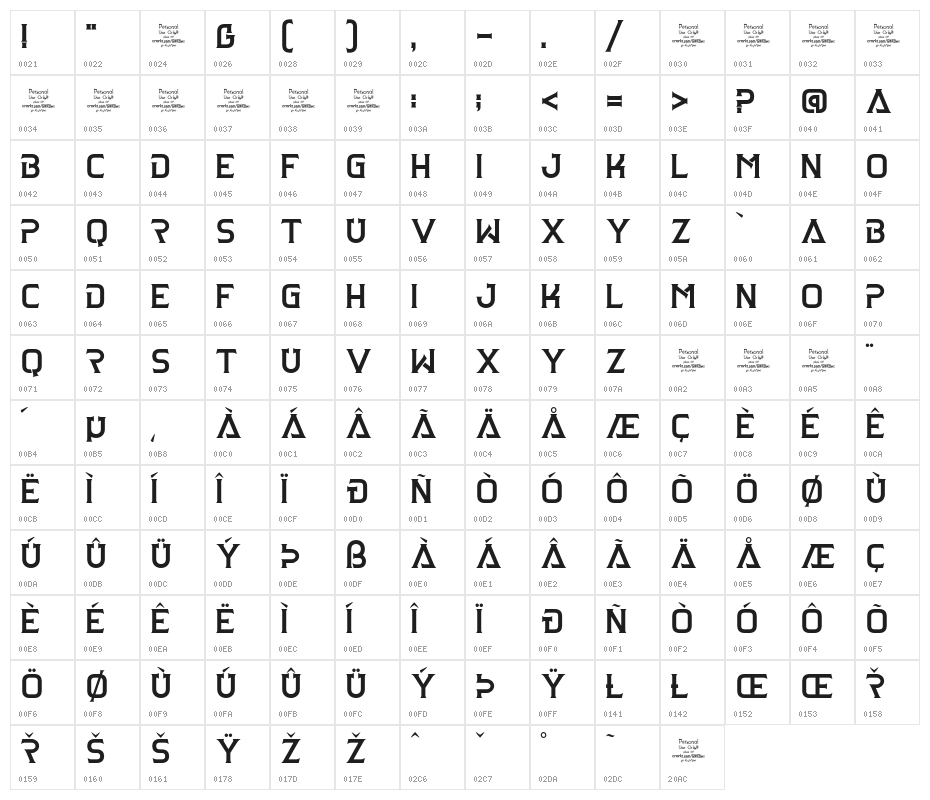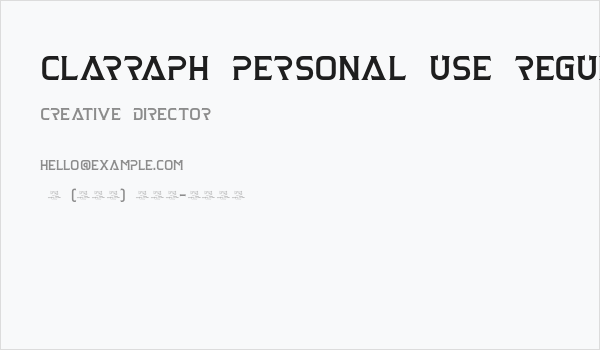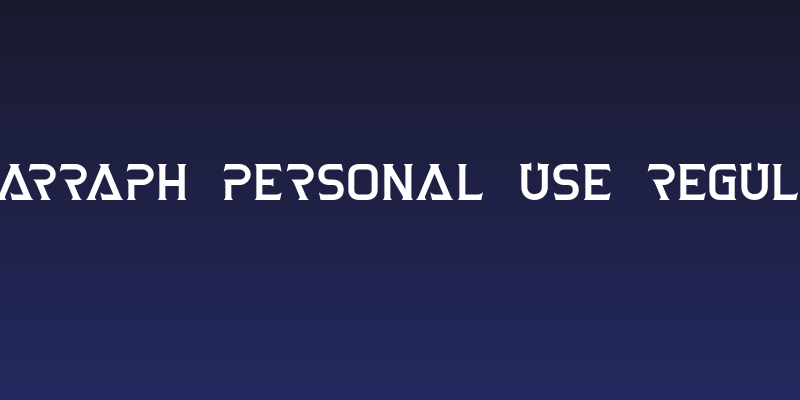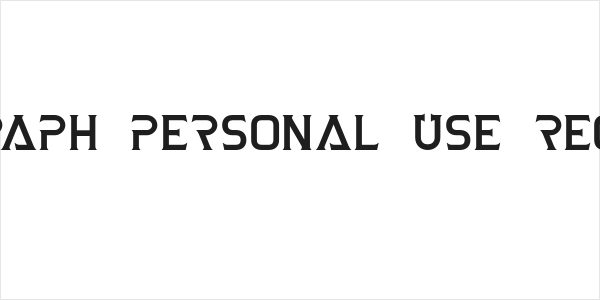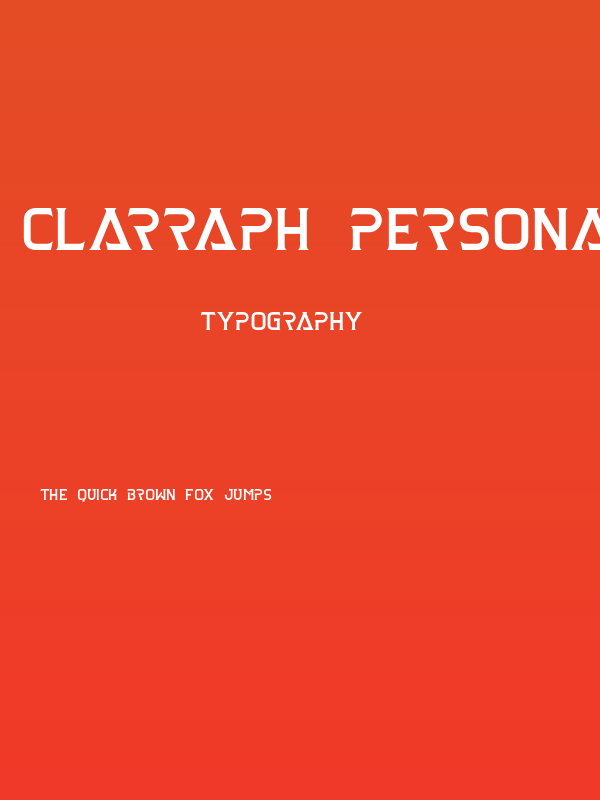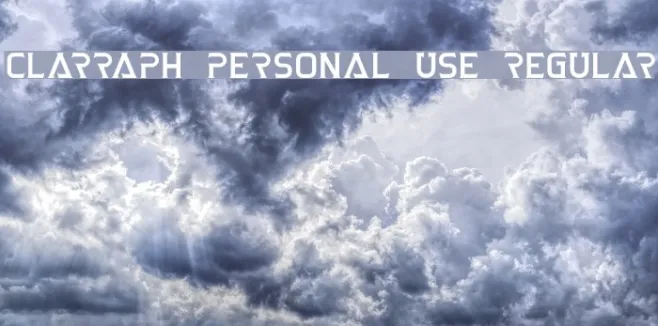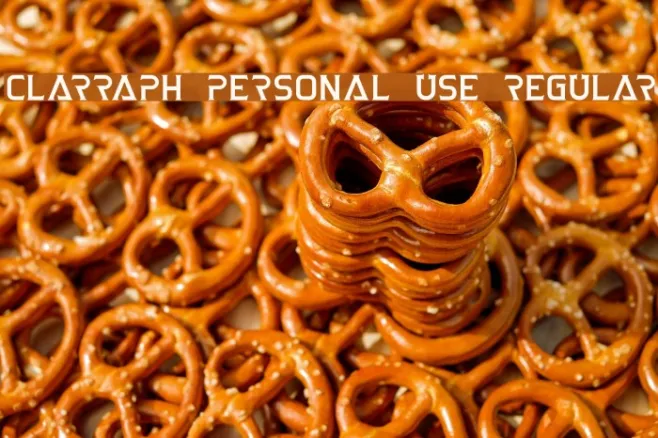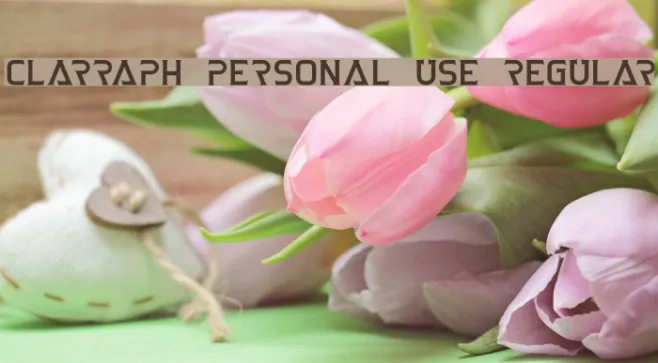
Clarraph Personal Use Regular Font
Clarraph Personal Use Regular Description
This font features a bold, geometric style with sharp angles and a modern aesthetic. The uppercase letters are distinct with a futuristic touch, characterized by their angular cuts and unique shapes. The lowercase letters maintain the same geometric style, offering a cohesive look across all characters. The numbers and special characters are designed to match the overall style, ensuring consistency. This font is ideal for projects that require a modern and edgy appearance, such as tech-related branding or contemporary design projects.
| Proposed Projects | Ideal for tech branding, modern posters, and futuristic design projects. |